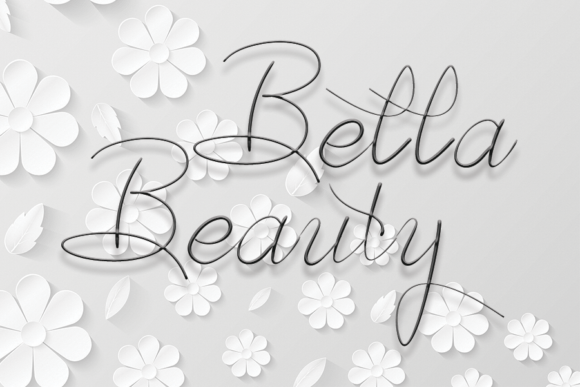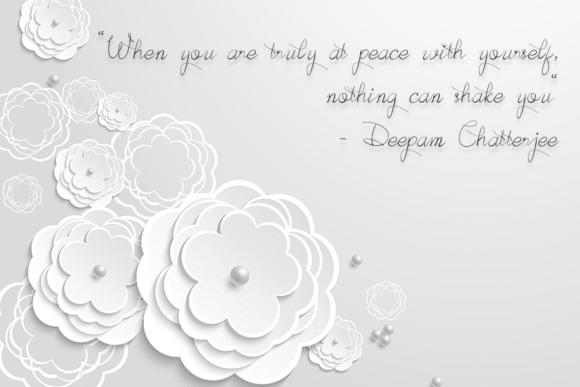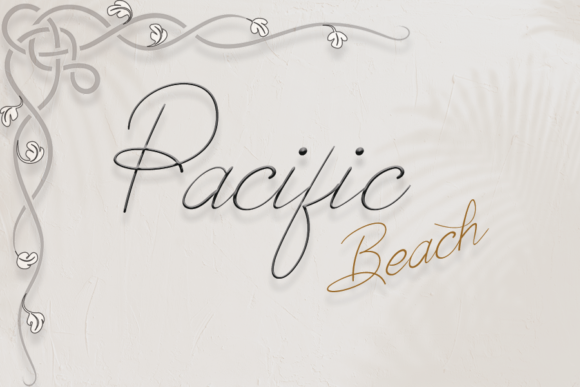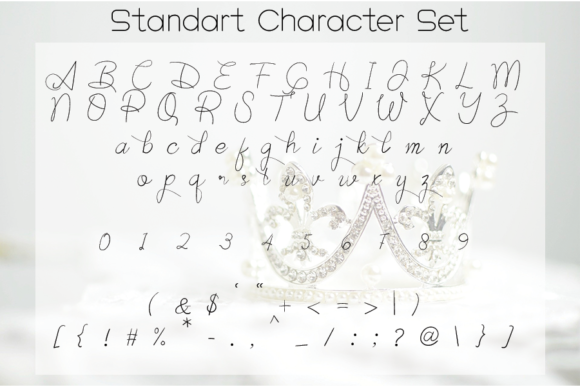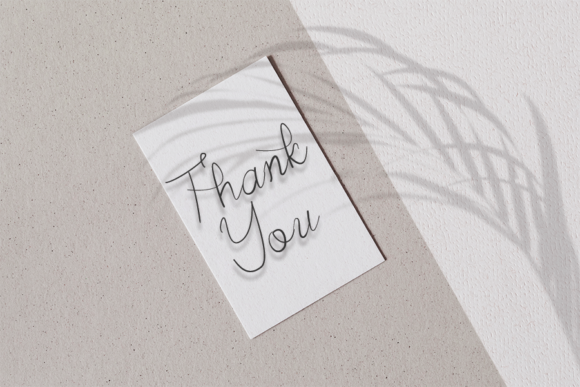
An Honest Review of Authentic
- ✨ Neatly crafted and highly detailed: Authentic is a beautifully crafted font that is full of intricate details and subtle nuances.
- ✅ Versatile: Whether you’re working on a branding project, a wedding invitation, or a social media graphic, Authentic is a versatile font that can adapt to any topic or theme.
- 💫 Elegant and sophisticated: Authentic has a certain je ne sais quoi that adds a touch of elegance and sophistication to any design.
While Authentic is an amazing font, there are a few small quirks to be aware of:
- 🤔 Limited use in body text: While Authentic is perfect for headings and titles, it may not be the best choice for body text due to its script nature.
- ⚠️ Requires careful kerning: As with any script font, Authentic requires careful kerning to ensure that the letters flow smoothly and evenly.
The Story Behind Authentic
Authentic was designed by a team of skilled typographers who wanted to create a font that was both elegant and versatile. The font was inspired by classic script fonts from the 19th century, but with a modern twist.
Q: What is Authentic?
A: Authentic is a fashionable and flowing script font that’s perfect for creative projects and branding materials.
Q: Is Authentic suitable for body text?
A: While Authentic is perfect for headings and titles, it may not be the best choice for body text due to its script nature.
Q: Is Authentic easy to read?
A: Authentic is a highly legible font that’s easy to read, even at small sizes.